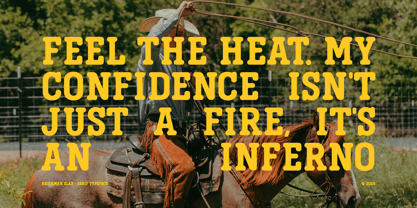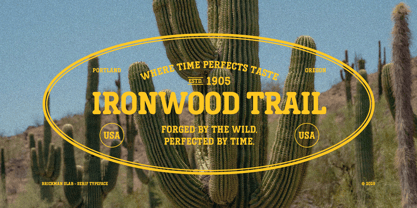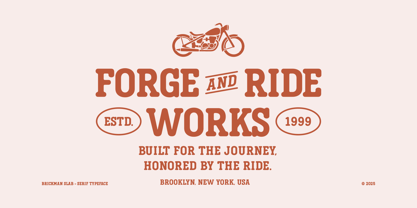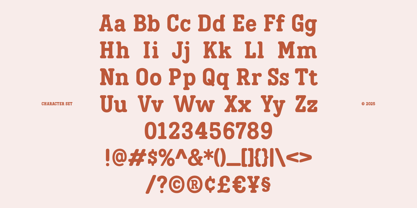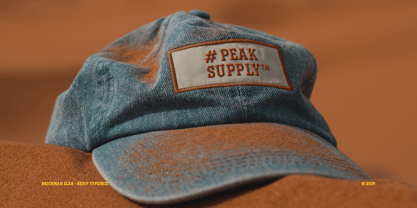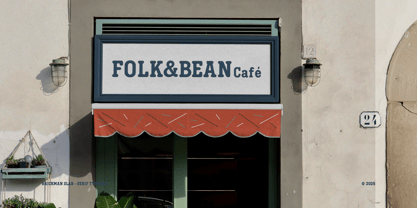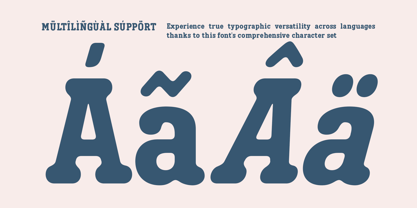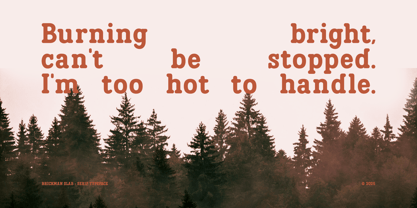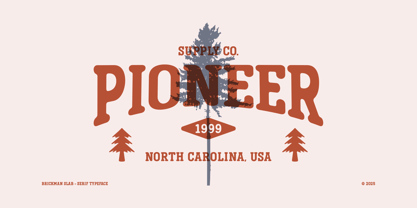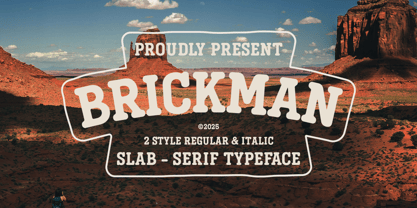
IT Brickman
by Indotype
Brickman is a bold slab serif display typeface that radiates strength, confidence, and timeless vintage charm. With its sturdy letterforms, solid proportions, and subtly rounded terminals that add a friendly touch, Brickman blends classic heritage with a fresh contemporary feel. Inspired by old Wild West advertisements, vintage storefront signage, and circus posters, this font brings an authentic warmth and nostalgic personality to any project.
Brickman comes in 2 styles: Regular and Italic, offering versatile design options for strong headlines as well as more expressive typography. The heavy slab serifs make it stand out both in print and on screen, while the italic style adds an appealing visual rhythm and character.
Packed with a full set of glyphs — including uppercase, lowercase, numerals, punctuation, and multilingual support — Brickman is perfect for branding, logos, product packaging, country music posters, vintage signage, beverage labels, and editorial designs that call for a bold retro statement. This is the go-to typeface for designers seeking a look that’s both strong and full of character.